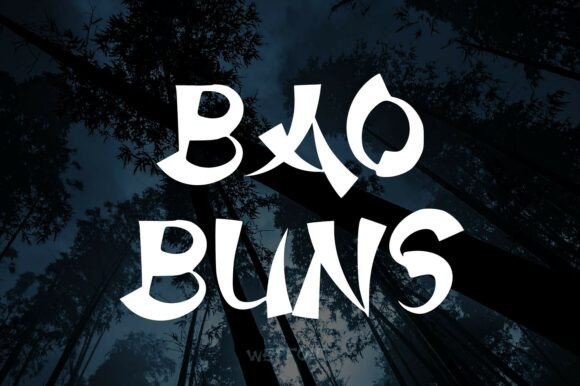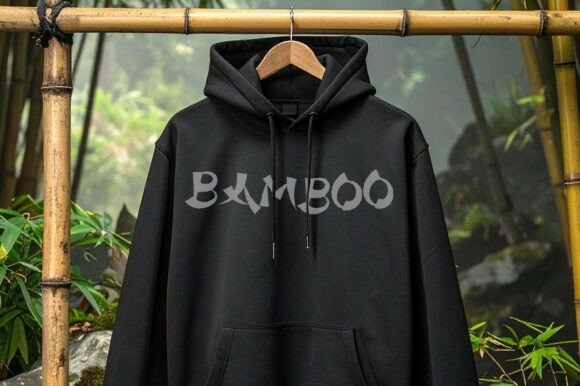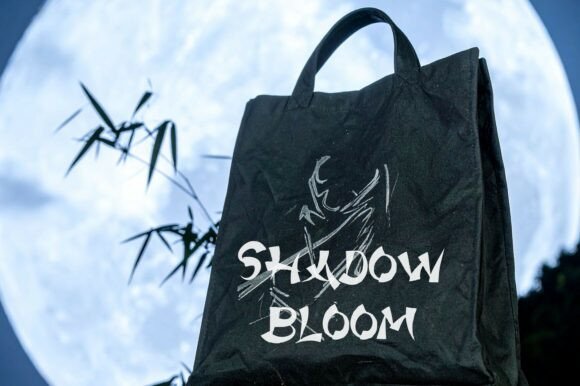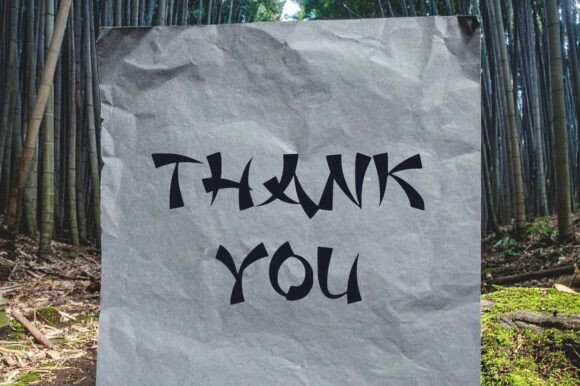
Unwrapping the Secrets of Bao Buns Font Font
Imagine strolling through a bustling Asian market, surrounded by the vibrant sounds and scents of exotic spices and ancient traditions. The moment you lay eyes on the intricate calligraphy adorning a temple wall or an ancient scroll, you’re struck by the beauty and mystique of East Asian culture. That’s the moment when Bao Buns Font Font comes alive, transporting you to a world of timeless elegance and sophistication.
Bao Buns Font Font is a captivating display font that masterfully blends traditional East Asian calligraphy with a modern, aged texture. This unique fusion of styles makes it the perfect tool for designers seeking to evoke the essence of ancient cultures, mystique, and refined Asian-inspired themes. With Bao Buns Font Font, you can unlock the secrets of creating designs that exude profound cultural heritage and timeless beauty, making it an invaluable asset for any creative project.
Bao Buns Font Font Key Features
- Font Family: Bao Buns Font Font offers a variety of font families, including bold, regular, and italic styles.
- Character Count: The font contains a vast character set, including Latin, Cyrillic, and Chinese characters.
- Language Support: Bao Buns Font Font supports multiple languages, including English, Chinese, Japanese, and Korean.
- Unique Characteristics: The font’s unique design and bold lines make it perfect for use in food, restaurant, and culinary branding.
Bao Buns Font Font Review
First off, I want to say that I was really excited to dive into the Bao Buns Font Font. The first thing that caught my eye was the unique, hand-drawn feel of the font. I think it would be perfect for any project that needs a fun, casual vibe ✨. The font includes a wide range of characters, including all the usual suspects, as well as some more unique glyphs that would be great for adding a touch of whimsy to your design.
One of the things that I think really sets Bao Buns apart is its customization options. You can adjust the font’s size, color, and even add some fun effects like shadows and outlines. This level of control would be a dream for any designer looking to really make their project stand out ✨.
- ⚠️ Limited support for non-Latin characters – while the font does include some basic glyphs for languages like Chinese and Japanese, it’s not comprehensive and may not be suitable for projects that require a lot of non-Latin text.
- ⚠️ Not suitable for small text sizes – while the font looks great at larger sizes, it can become quite blurry and difficult to read at smaller sizes.
Overall, I think Bao Buns Font Font is a great addition to any designer’s toolkit. While it may have some limitations, I think its unique look and customization options make it a great choice for any project that needs a fun, casual vibe. Just be sure to use it wisely and take into account its limitations!
Compared to Bao Buns Font Font, Bangers Font has a more straightforward and legible design, whereas Bao Buns Font Font is more stylized and ornate. Bangers Font is a better choice when you need a bold, yet clean font.